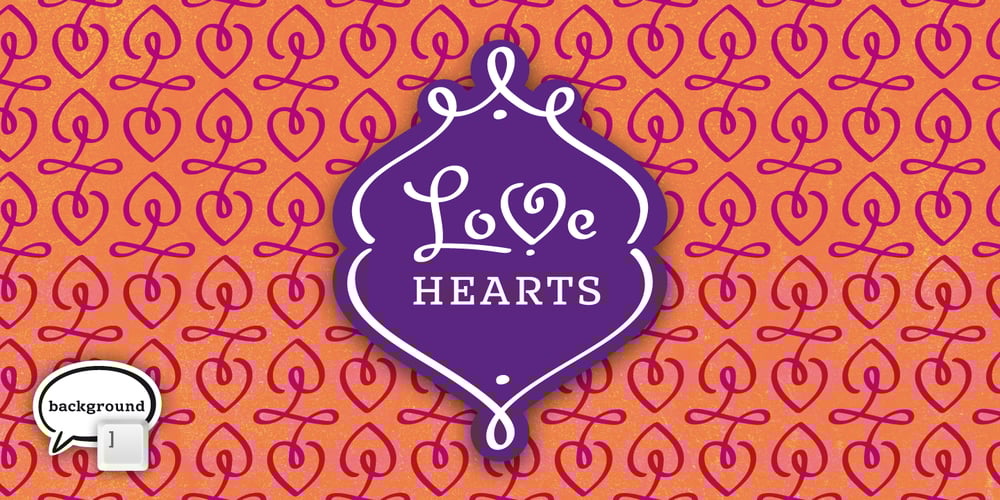
LoveHearts
LoveHearts font
LoveHearts Font Family was designed by Vassil Kateliev and published by Karandash. LoveHearts contains 1 styles and family package options. A lovely valentine inspired set of calligraphic ornaments and frames including seamless borders and patterns. With more than 160 hand drawn unique designs LoveHearts is the perfect choice for designing romantic greeting cards and beautiful wedding invitations as well as letter signatures and anniversary accessories.